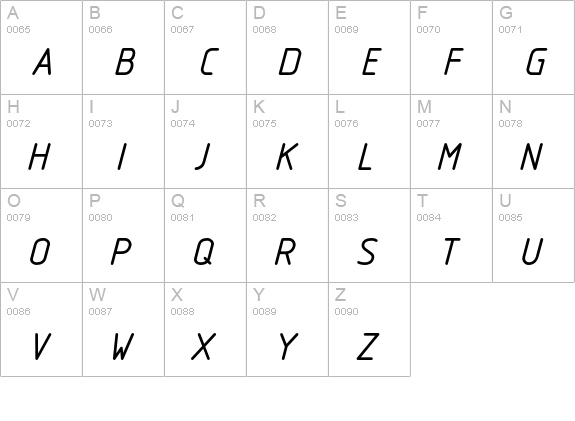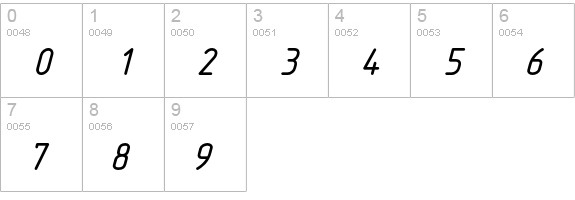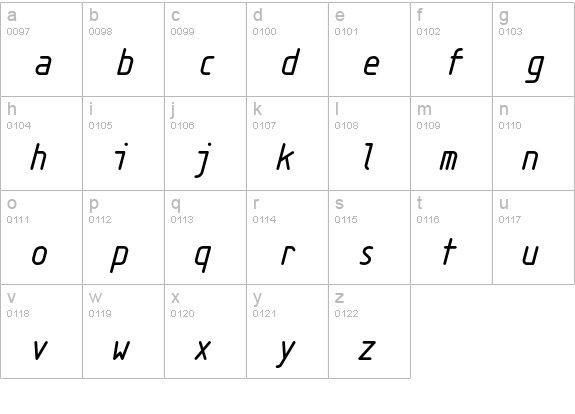
Isonorm3098-ItalicMonospaced Font Details
Isonorm3098-ItalicMonospaced font is a stunning typeface that effortlessly combines elegance and functionality. Designed with meticulous attention to detail, this font is the perfect choice for any project that requires a touch of sophistication. With its unique italic monospaced design, Isonorm3098-ItalicMonospaced stands out from the crowd, offering a distinct and eye-catching aesthetic. The carefully crafted curves and angles of this font create a harmonious balance between modernity and tradition, making it versatile for a wide range of applications. One of the standout features of Isonorm3098-ItalicMonospaced is its exceptional legibility. The monospaced nature of the font ensures that each character occupies the same amount of horizontal space, resulting in clear and easily readable text. Whether it's used for coding, technical documentation, or any other text-heavy project, this font guarantees optimal readability and comprehension. Another advantage of Isonorm3098-ItalicMonospaced is its versatility. With a design that seamlessly blends classic and contemporary elements, this font is suitable for both print and digital media. From logos and headlines to body text and captions, Isonorm3098-ItalicMonospaced adapts effortlessly to any layout or design, enhancing the overall visual impact. The best part? Isonorm3098-ItalicMonospaced is available for free download at FontsMarket.com. This means that you can add this exceptional font to your collection without any cost. Take advantage of this opportunity to elevate your designs and add a touch of sophistication to your projects. So, whether you're a designer, developer, or simply someone in search of a distinctive and versatile font, Isonorm3098-ItalicMonospaced is a must-have. Download it now for free at FontsMarket.com and unlock a world of possibilities for your creative endeavors.